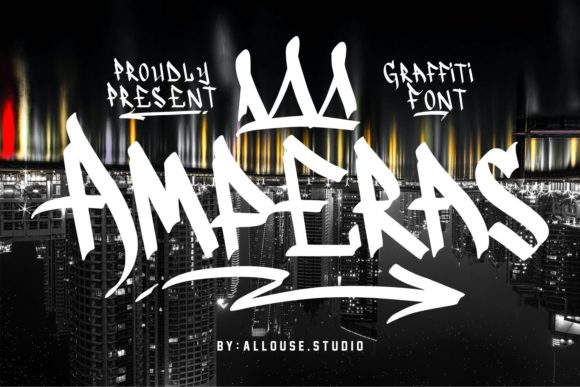
Unleash your creativity with Amperas, the font that dances off the page with its captivating graffiti style. Designed to make a statement, Amperas is a bold and dramatic display font that will transform your designs into masterpieces.
Journey into a world of limitless expression, where every word carries the weight of your imagination. Amperas isn't just a font; it's an experience, an invitation to let your ideas run wild and create something truly unique.
Picture this: sleek product packaging adorned with Amperas, its bold letters commanding attention and urging customers to take notice. Your branding projects will leap off screens and into the hearts of your audience, leaving an unforgettable impression that sets you apart from the crowd.
Envision Amperas gracing the pages of your magazine, its playful strokes adding an edge of intrigue that keeps readers engaged from cover to cover. Social media posts will come alive with Amperas' vibrant energy, captivating your followers and turning every post into a work of art.
Whether you're planning a wedding or simply want to express your thoughts in a captivating way, Amperas is your perfect companion. Let the letters flow onto your invitations, programs, and signage, creating a cohesive and unforgettable aesthetic that will leave your guests in awe.
Amperas is more than just a font; it's a tool that empowers you to break free from the ordinary and embrace the extraordinary. With its graffiti-inspired charm, Amperas will transform your words into visual wonders, leaving a lasting impact wherever it's used.